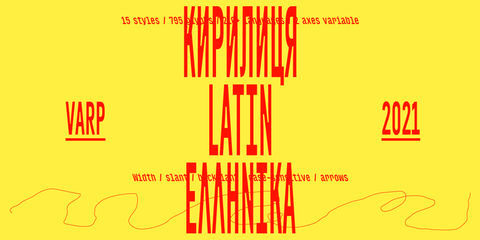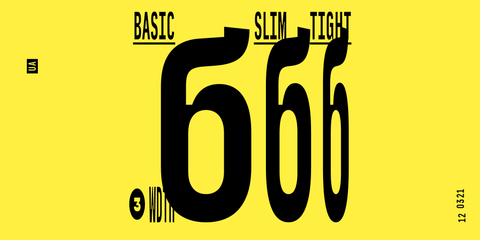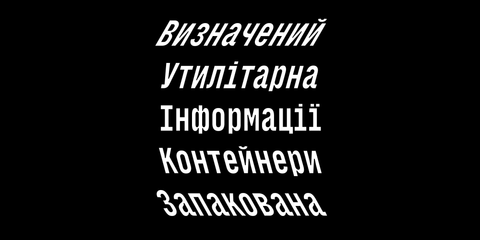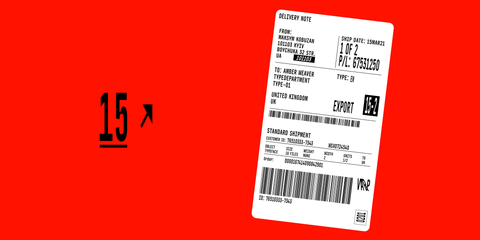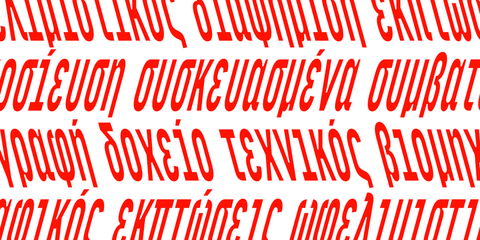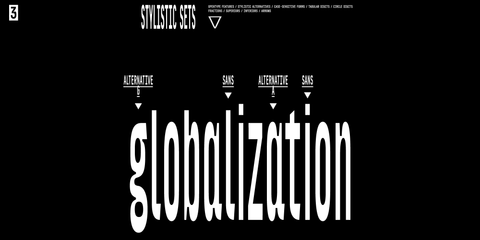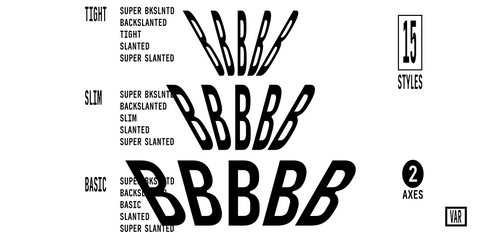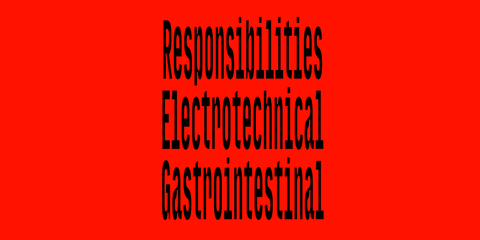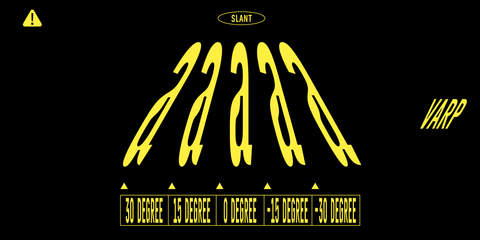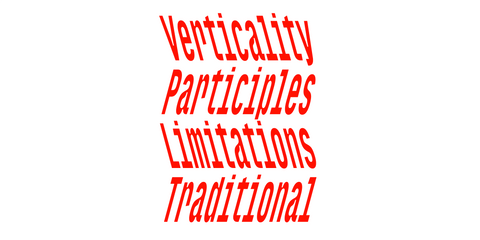
Varp Variable Font, tight, slim, basic. 15 styles
Varp Variable Font - change the angle of your font
Varp variable font character set
Varp Variable Font Special Mono spacing font
Varp Font Monospaced Symbols
Varp Variable Font, Basic, slim and tight
Varp Variable font multi-language support
Varp condensed font in use
Varp Font Stylistic sets, alternative characters
Maksym Kobuzan
Varp Variable Font Family – Boldly Geometric, Dynamically Technical
Meet Varp—a variable typeface family with a technical edge that adapts to your every creative move.
Designed by Maksym Kobuzan, this geometric masterpiece comes with two axes of pure customization. From ultra-slim to precision-tight styles, Varp’s unique reverse contrast amplifies visual impact while keeping text razor sharp. Inspired by utilitarian designs and transport markings, its DNA is rooted in the iconic DIN font, but with a twist—think sharp spurs, intense ink traps, and massive style.
Need something extra? Varp isn’t just flexible in width—it tilts up to an extreme 30 degrees, creating italicized perfection without losing clarity. No "holes" in your type setting here; the smart spacing and kerning ensure a smooth, monospaced vibe while keeping the rhythm alive.
Font Features to geek out on:
• 795 glyphs to cover all your language needs (Latin Extended, Cyrillic, Bulgarian, Greek).
• A whopping 15 styles to play with (3 widths, 5 italics, and the full variable version).
• Customizable width & tilt angle—precision control like you’ve never seen before.
• Comprehensive OpenType support including numerals, symbols, arrows, ligatures, and stylistic sets.
• Built for creatives, supporting over 210 languages.
This font is your go-to for bold editorial designs, technical branding, or whenever you want your text to command attention. Varp makes sure your words work as hard as your designs.